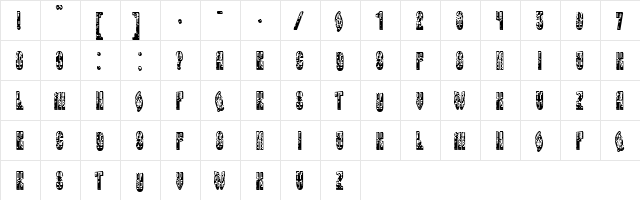
Russian Land Old Regular
Design Context for Russian Land Old Typeface
Russian Land Old is a composed and adaptable typeface that performs quietly and consistently across a wide range of design contexts.